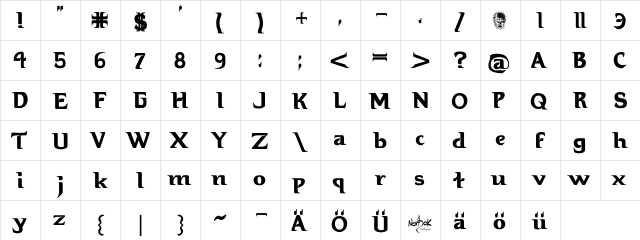
Hellbound Regular
| Designer | Thomas W.Otto |
Design Context for Hellbound Typeface
Hellbound is a composed and adaptable typeface that performs quietly and consistently across a wide range of design contexts.
Dating back to 1999, this typeface is available in OpenType (OTF) format.